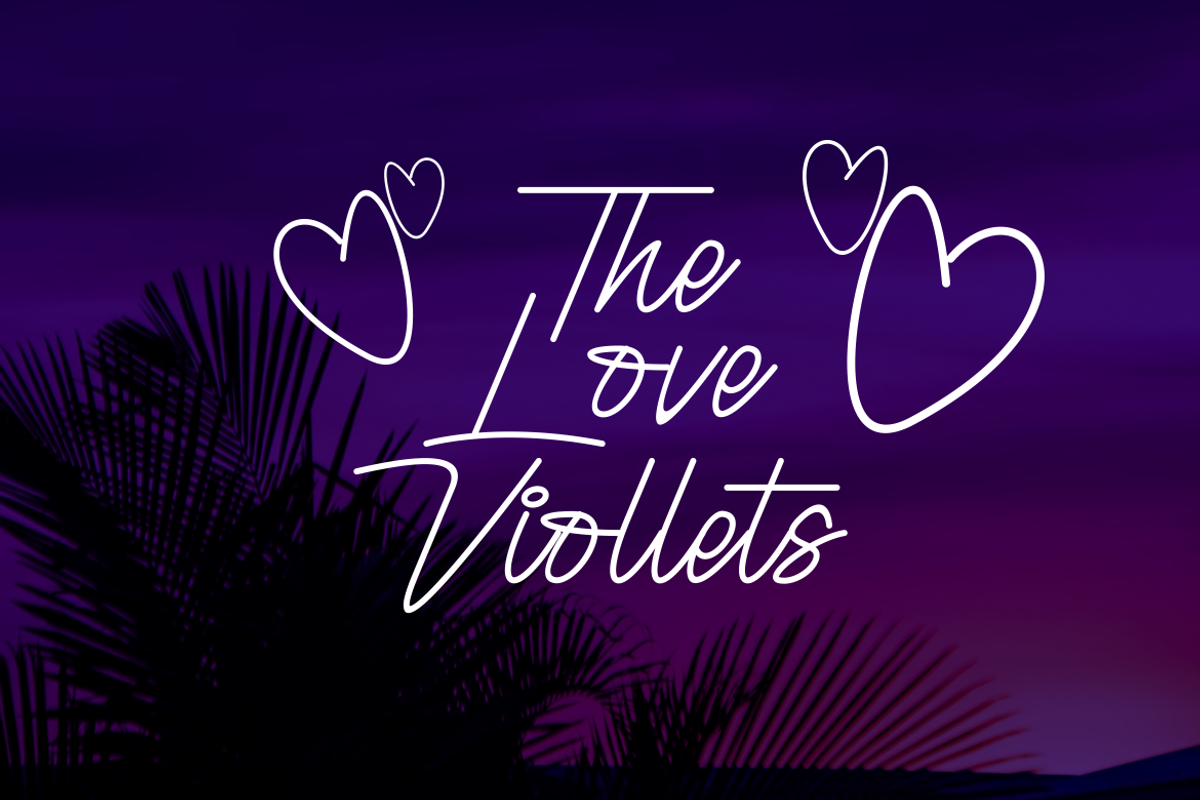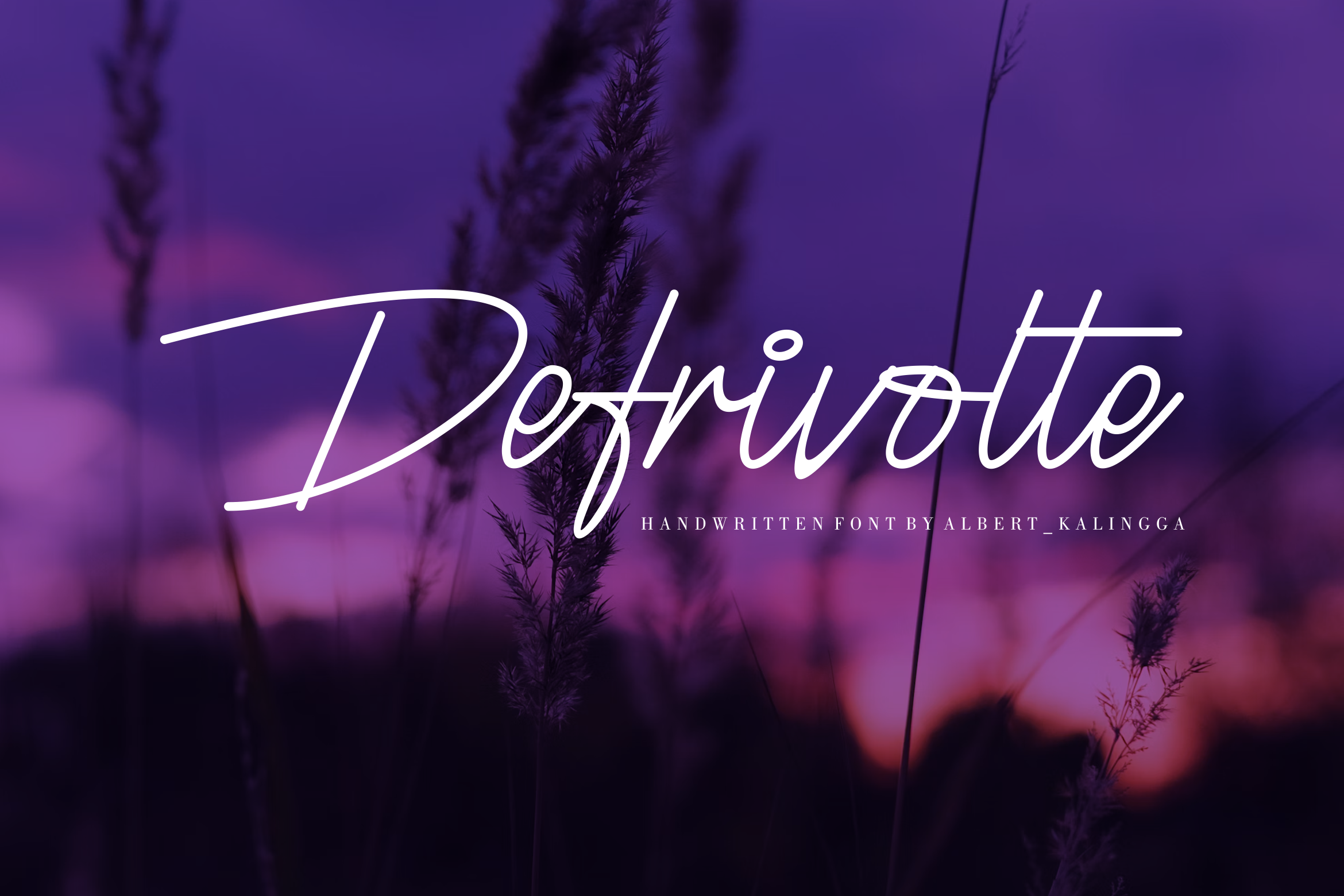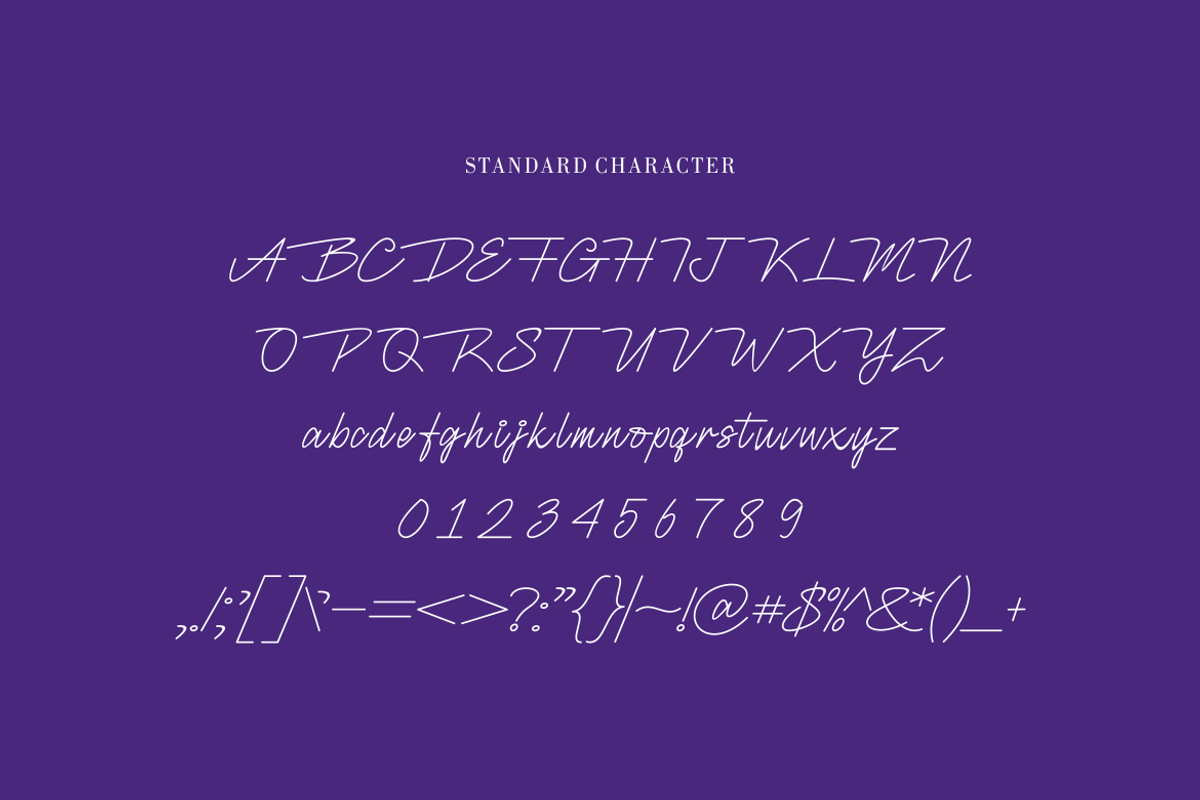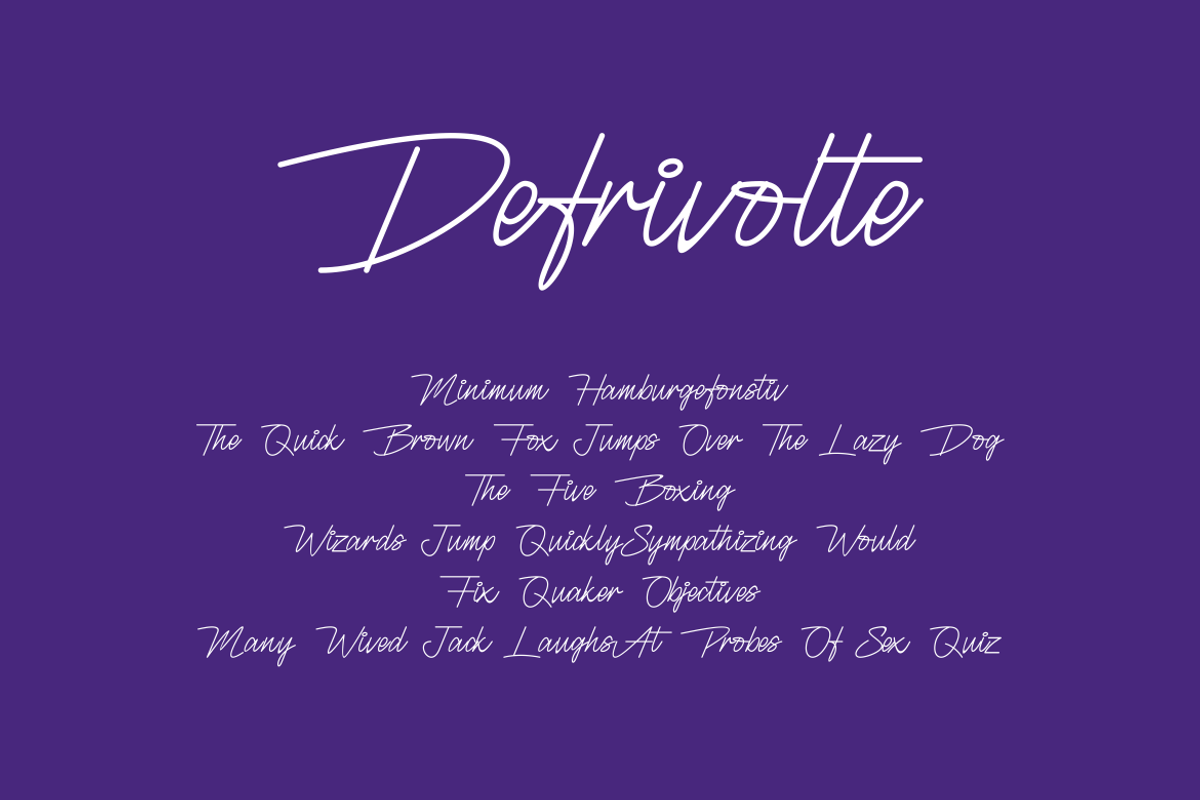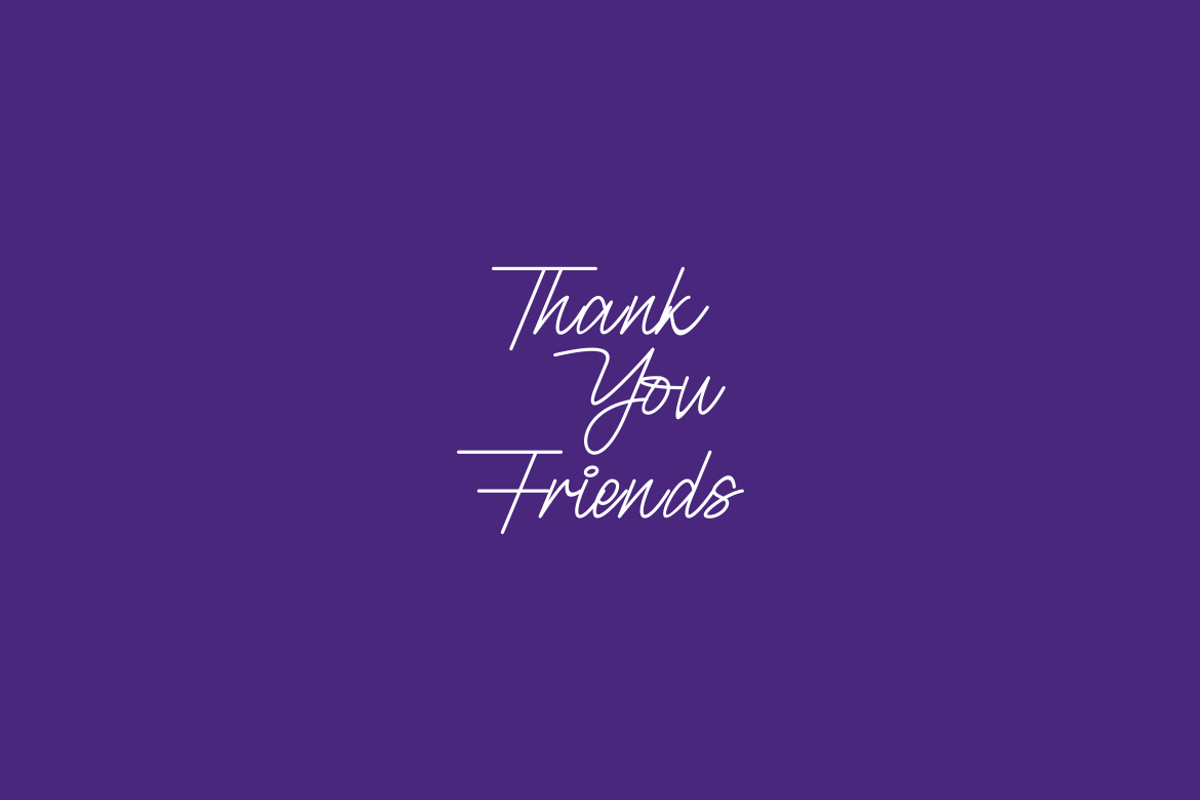
Defrivolte Font
Introducing our new product Defrivolte Font - Modern Font
Defrivolte Font - Modern Font is a bold and authentic display font. The font is suitable for any branding project like logo, esport, and many more. outstanding in a wide range of contexts.